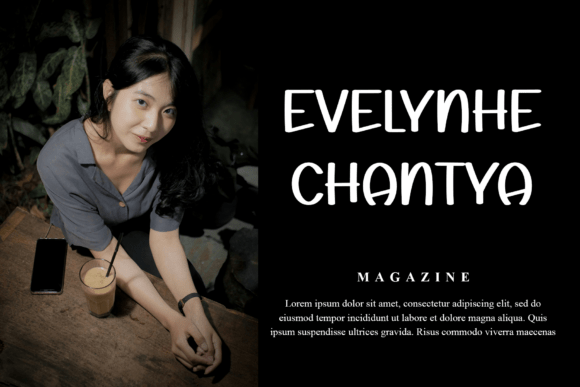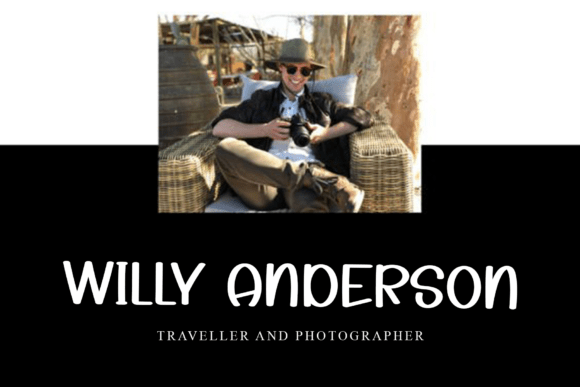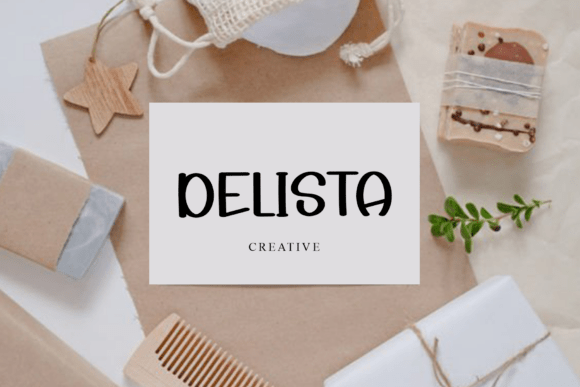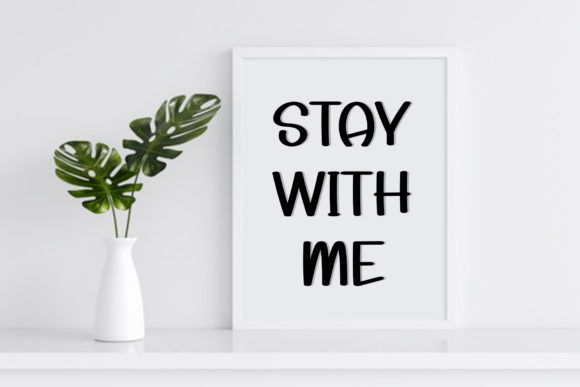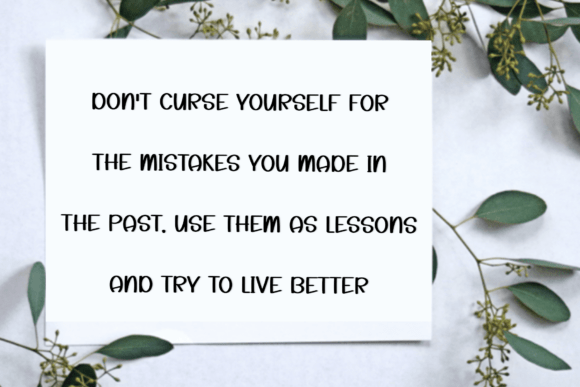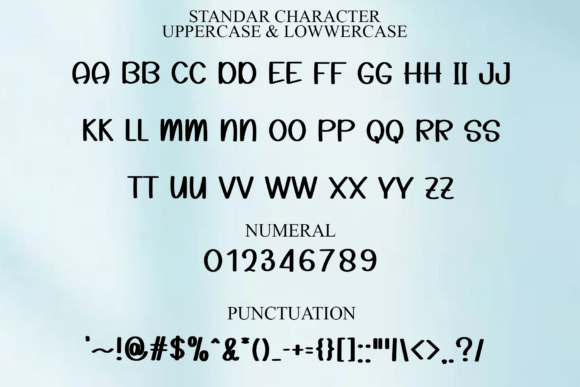
Discover the Charm of Flora Garden Font: A Casual and Creative Companion for Designers
Are you on the hunt for a font that embodies warmth, friendliness, and a dash of playfulness? Look no further than the Flora Garden Font. This delightful typeface is perfect for designers, crafters, and anyone looking to add a personal touch to their projects. With its round, playful strokes, Flora Garden exudes a relaxed and approachable feel, making it an ideal choice for personal projects, invitations, social media graphics, and more.
The Allure of Flora Garden’s Hand-Drawn Aesthetic
What sets Flora Garden apart is its charming, hand-drawn aesthetic. The font’s unique, organic feel adds a fun and distinctive touch to any design, setting it apart from more traditional typefaces. Whether you’re creating a whimsical invitation, a lively social media post, or a personal blog, Flora Garden is sure to bring a smile to your audience’s faces.
Ideal Applications for Flora Garden Font
So, where can you use Flora Garden Font to make an impact? The possibilities are endless, but here are a few ideas to get you started:
- Personal Projects: Add a touch of personality to your blog, journal, or scrapbook with Flora Garden’s playful charm.
- Invitations: Create eye-catching invitations for parties, weddings, or baby showers that set the tone for a fun and celebratory event.
- Social Media Graphics: Elevate your social media presence with Flora Garden’s friendly, approachable vibe.
- Crafting and DIY Projects: Use Flora Garden to add a personal touch to your crafting and DIY projects, such as handmade cards, gift tags, or signage.
Why Designers and Crafters Love Flora Garden Font
Flora Garden Font has quickly become a favorite among designers and crafters, and for good reason. Here are just a few reasons why:
- Unique and Playful: Flora Garden’s hand-drawn aesthetic adds a touch of whimsy to any design.
- Easy to Read: The font’s round, playful strokes create a relaxed and approachable feel that’s easy on the eyes.
- Versatile: Flora Garden can be used for a wide range of projects, from personal to commercial.
In conclusion, Flora Garden Font is a casual and creative typeface that’s perfect for designers, crafters, and anyone looking to add a personal touch to their projects. With its charming, hand-drawn aesthetic, round, playful strokes, and seamless integration with popular design applications, Flora Garden is sure to become a staple in your font collection. So why wait? Discover the charm of Flora Garden Font today and bring a touch of warmth and friendliness to your designs!